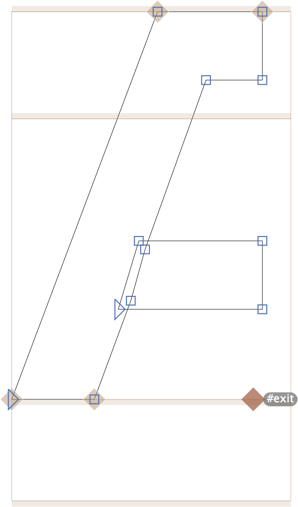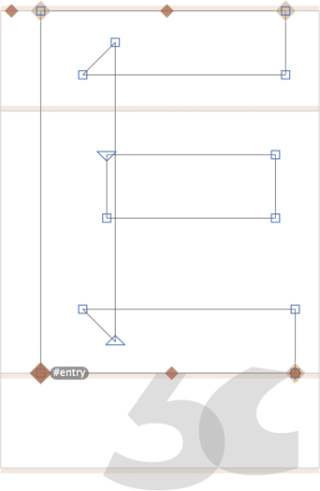
Reusing shapes: component tricks
You know about serif components, smart components and corner components but you are still craving more components? These tips and tricks will make you happy.
Build your Q
Basically, the Q is just an O with a tail in some designs. So, to make things easier, and if your design allows for it, you can use your O as a component for your Q. Open your Q in Edit view by either double-clicking it in Font view, or typeing it in Text mode. Go to Glyph > Add Component (Shift-Cmd-C) and select O. Then, draw a nice tail. This is ours:
But, you shouldn’t mix components with paths, because if you do, automatic alignment will be turned off. That means, when you shift your O, the tail and the O will get out of sync. So, we also make the tail a component. To do so, just press Cmd-A once to select all paths, right click to bring up the context menu, and select Component from Selection. The name of the new glyph is arbitrary, just make sure it makes sense to you and that there is an underscore first. That way, the glyph will be set to non-exporting straight away. We’ll call ours _tail.Q.
To stick the tail to a certain place of the O, just add an anchor in your O. You can do that by opening the context menu and selecting Add Anchor. The name will be automatically selected for you to rename.
Name it something striking, like qtail. Select it and drag it to where you want your tail. Then, in your _tail.Q, add an anchor and name it the same as in your O, but with an underscore in front of it. The underscore tells the anchor that it is linked to the qtail anchor.
Ta-daah! There’s your all-component Q:
Build your y
Just like the Q, you can also construct the y with a tail and your v, if it makes sense for your design or workflow. In my experience, designs that are modular, geometric, light, high-contrast, or aimed at low-resolution screens can be candidates for such an approach. Sure enough, you will have to have your eye judge if it really works or not. But also in other designs, this construction can be useful at an early design stage, where you eventually will decompose and apply optical adjustments. But until that point is reached, making use of components and automatic alignment helps maintain consistency when you are still changing a lot.
Open your v in Edit view by double-clicking it in Font view or type it in Text mode. Again, go to Glyph > Add Component (Shift-Cmd-C) and select v. Draw a nice tail to go with your v. To make sure that the tail matches the v, here’s a little trick: select two nodes on your v-stem. Now, right-click to open the context menu and select Add Guide.
Now, a blue guide should appear over the two selected points:
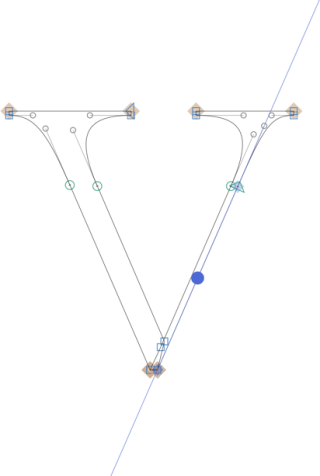
Select the guide and copy it by pressing Cmd-C. Then, open your _tail.y and paste the guide by pressing Cmd-V. That way, you can easily match the tail angle with the stem. Make sure anchors and points are on the same coordinate to avoid shifts in the unit grid.
The tail should stick to the v, so we’ll add an anchors to the v. This time, we’ll call it ytail, but again the name is arbitrary. You can copy the anchor by pressing Cmd-C. Open your _tail.y and paste the anchor with Cmd-V, then double-click it to rename it. Again, this one should have the same name as your v anchor, but with an underscore at the beginning.
This way the anchors are on the same height, which is important, because the both components share the same y coordinate. By having them on the same height we avoid the risk of vertical shifts in the compound y.
Just like with the Q, we make the tail a component. Press Cmd-A to select all paths, right click and select Component from Selection. Again, the name of the new glyph can be arbitrary, it just needs to have an underscore at the beginning so that it won’t export. Ours will be called _tail.y.
That’s it. Yay!
Other glyphs
Depending on your design, you can also build other glyphs out of components. For example Eng out of N and a descender part, ae out of an a part and e, oe out of an o part and e, w out of a w part and v, and if you have a sans-serif font you can also build eng out of n and a descender part or thorn out of p and a stem part.
But wait a minute… take a closer look at ae, oe and w in the screenshot. They are a little different from the above examples.
Ligature compounds
In fact, they are ligatures of multiple shapes. So, in order to make the most of automatic alignment, we could build special ligature letters, adjust the sidebearings where necessary, and simply build a ligature by adding them as components. That way we do not even need anchors.
E.g., you can build ae out of a special a.ae and an e. Into the a.ae, you copy the paths of the a, remove the spur, and perhaps adjust the stem width a little. The a.ae needs an =a as metric key for the LSB, and a negative RSB, just as much that it would form a nice ligature with e. Open your ae, and add a.ae, then e as components. They should align automatically.
And because the a.ae should not export, go into the glyph, right-click to open the context menu, and select Export to remove the checkmark.
Fantastic. Thank you, Arabic script, for cursive attachment!